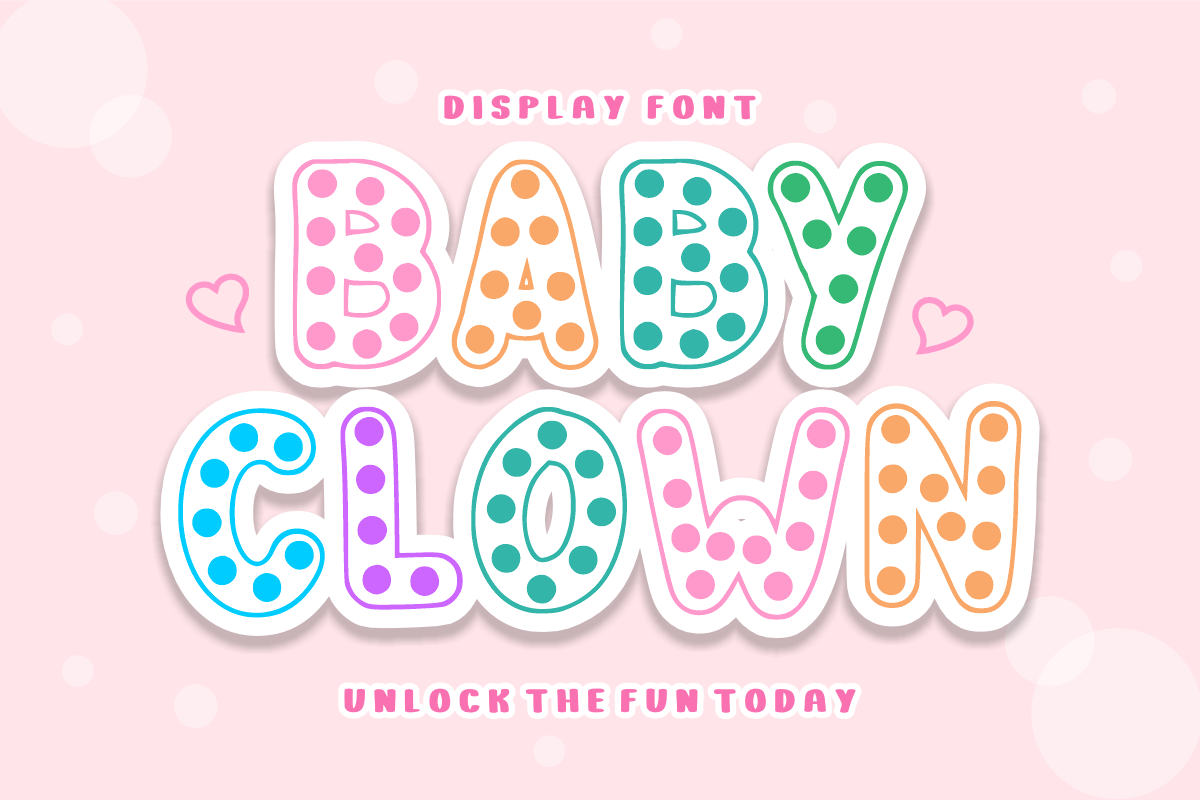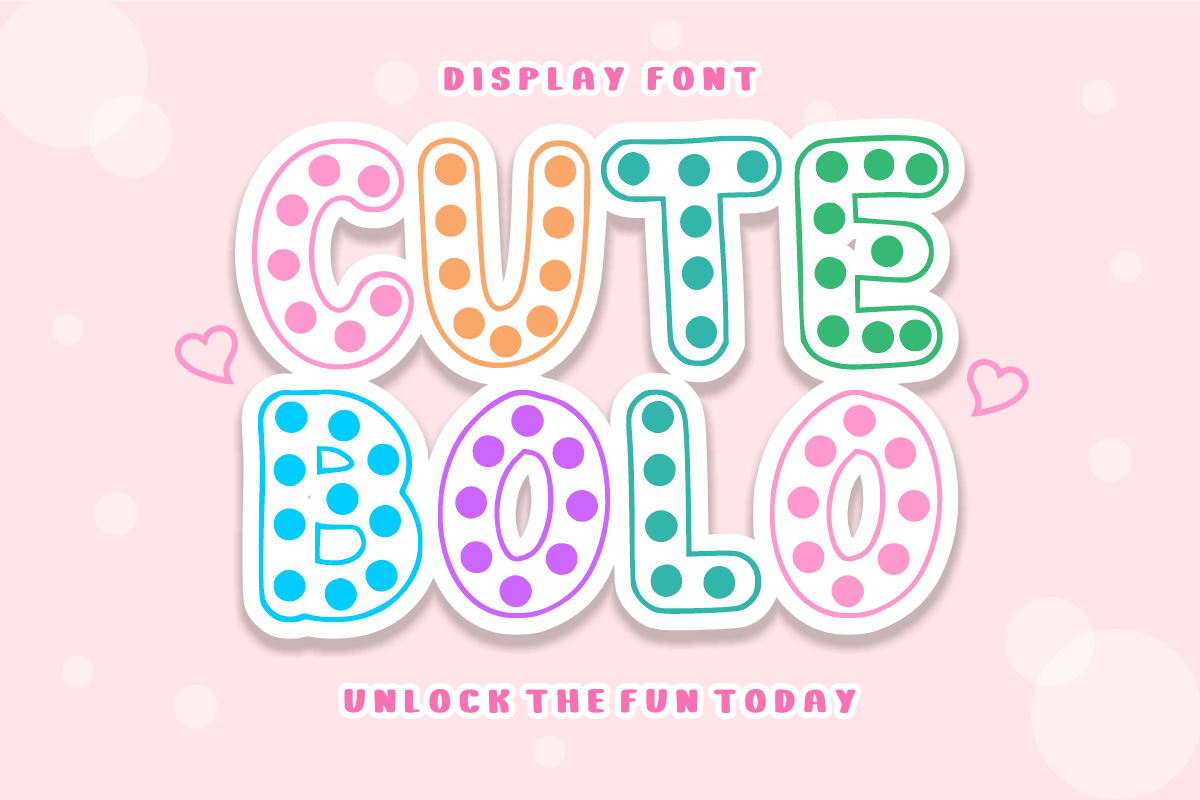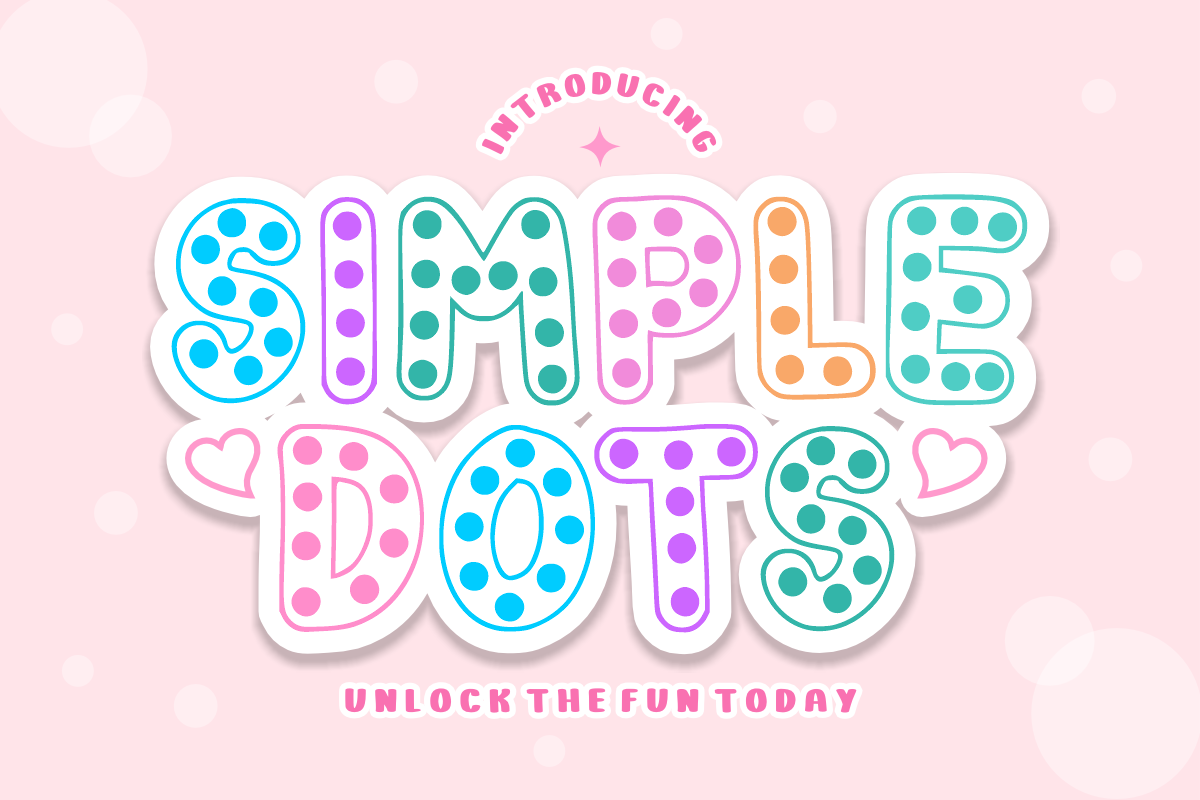
Simple Dots - Polka Dot Display Font
Simple Dots - Playful Polka Dot Display Font
Add a splash of whimsical charm and vibrant energy to your design projects with Simple Dots! True to its invitation to "Unlock the fun today," this unique display font features bold, clean outlines completely filled with playful polka dots. It is specifically engineered to bring an instant cheerful, handcrafted look to your text while maintaining excellent legibility.
Perfect for the crafting community, juvenile branding, and festive holiday designs, Simple Dots beautifully balances a joyful novelty aesthetic with professional vector precision. It is highly versatile and fully optimized for seamless integration across premium digital cutting tools and print layouts.
All-Caps Character Set (Bold, rounded uppercase letters filled with a clean dot pattern)
Cricut, Silhouette, & DIY Crafting Projects ✂️
Children’s Branding & Playful Logo Design 🎨
Kids' Product Packaging, Sticker Design, & Party Decor 🧸
School Worksheets, Teacher Resources, & Classroom Decor 🎒
Social Media Graphics & High-Impact Youth Marketing 📱